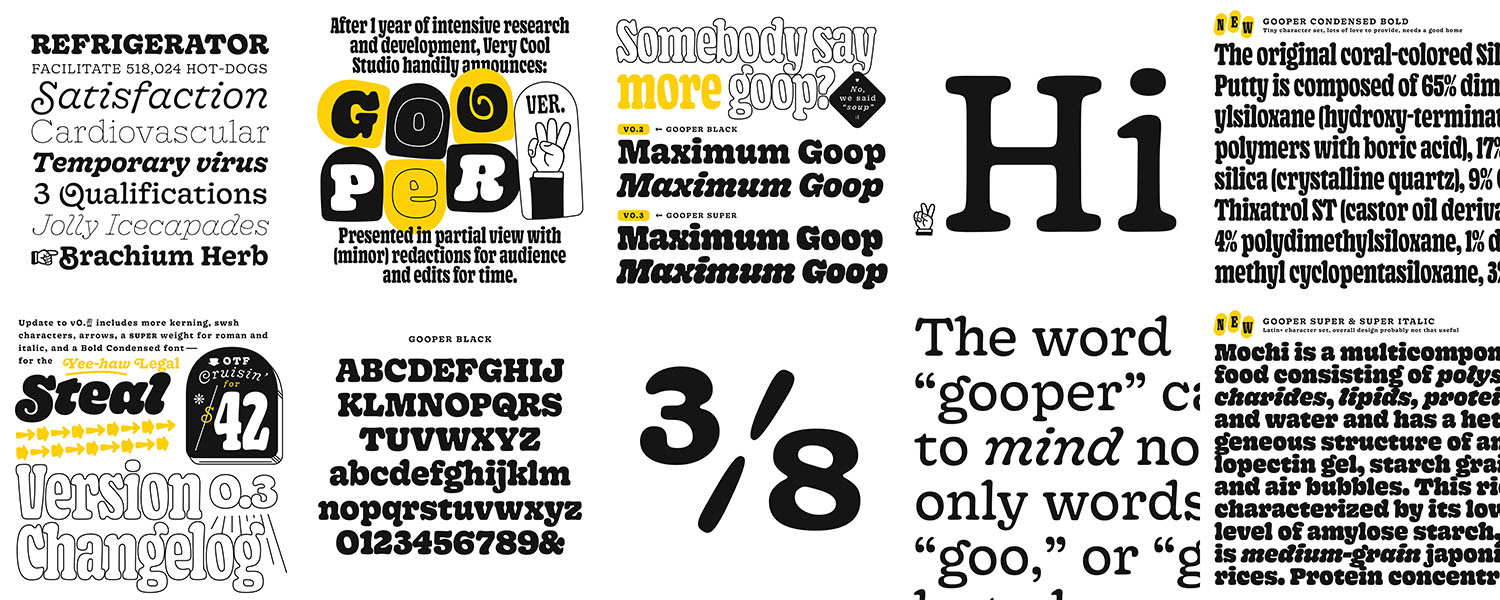
Gooper Font
Gooper Font is perfect for playful children's branding, fun toy packaging, cheerful game interfaces, whimsical entertainment marketing, colorful candy shop signage, joyful family communications, happy cartoon graphics, and delightful youth-oriented campaigns.
What makes Gooper Font exciting is its playful exuberance that embodies boundless joy and carefree fun with childlike wonder and infectious enthusiasm. The font features bouncy letterforms with playful proportions and cheerful character variations that evoke bubble baths, playground laughter, and the pure happiness of childhood imagination and carefree play. Its distinctive bubbly styling and joyful appeal communicate fun, happiness, and playful energy, making every message feel filled with giggles and touched by the irresistible charm of pure joy and childlike enthusiasm.
The Gooper Font family includes regular weight with uppercase and lowercase letters, numerals, punctuation marks, and special characters. Premium versions often feature playful alternates and bubbly elements that enhance the cheerful, fun aesthetic perfect for children's and entertainment applications.
This delightful playful typeface brings instant joy and family-friendly credibility to any fun-focused project. Gooper Font Free Download offers exceptional value for children's businesses and entertainment organizations seeking to communicate playful joy, childlike wonder, and infectious happiness to families and young audiences.
The cheerful character of Gooper Font makes it particularly valuable for toy companies, children's entertainment venues, and family-oriented businesses. Its excellent readability ensures playful messaging and fun communications remain clear while maintaining the distinctive bubbly aesthetic that appeals to children and families seeking joyful experiences and playful entertainment.
Family entertainment marketers appreciate how Gooper Font effortlessly conveys playful authenticity and childlike joy. The font's bouncy proportions and cheerful details create delightful brand materials that establish emotional connections with audiences who value childhood happiness, family fun, and the infectious energy of playful joy and carefree entertainment.
The versatile playfulness of this typeface extends to children's education, family entertainment centers, and playful product design where bubbly authenticity enhances family appeal and joyful positioning. Gooper Font Free Download provides creative professionals with an essential tool for developing memorable, joy-driven designs that resonate with audiences who embrace childhood wonder, playful happiness, and the bubbly charm of goopy fun in their family and entertainment experiences.